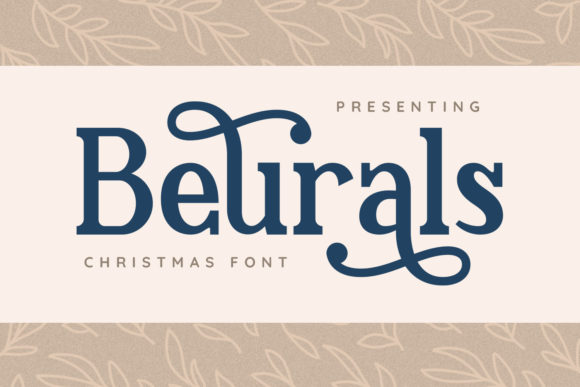
Feast your eyes on Beurals Font, a vintage-styled display font with an inimitable charm that will captivate your senses. This remarkable creation by Runsell Graphic is not just another font; it's an artistic masterpiece that will transform your designs into captivating works of art.
Immerse yourself in the nostalgic aura of Beurals Font, reminiscent of bygone eras and timeless elegance. Its carefully crafted characters exude an air of sophistication and charm, adding a touch of class to any project you undertake. Whether you're designing logos, posters, invitations, or social media graphics, Beurals Font will elevate your creations and make them stand out from the crowd.
Unleash your creativity and let Beurals Font take you on a journey through time. Its vintage aesthetic lends itself perfectly to projects with a retro or classic feel, evoking a sense of nostalgia and warmth. Yet, this font's versatility extends far beyond the realm of the past. With its timeless appeal, Beurals Font can effortlessly adapt to contemporary designs, adding a touch of vintage charm to modern projects.
Step into the spotlight with Beurals Font and watch your designs shine brighter than ever before. Its unique and eye-catching style will draw attention and leave a lasting impression on your audience. Whether you're a seasoned designer or just starting out, Beurals Font will empower you to create designs that resonate with your audience and leave them in awe.